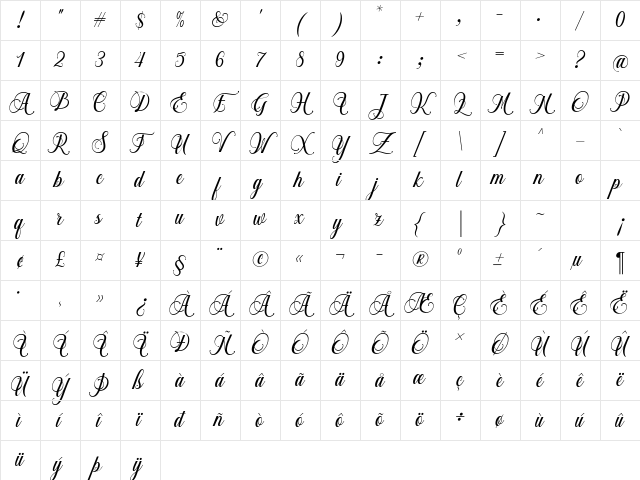
Complete Chalisa Oktavia Regular glyph index. Displaying only characters natively supported by Chalisa Oktavia Regular font.
Chalisa Oktavia is a composed and adaptable typeface that performs quietly and consistently across a wide range of design contexts.